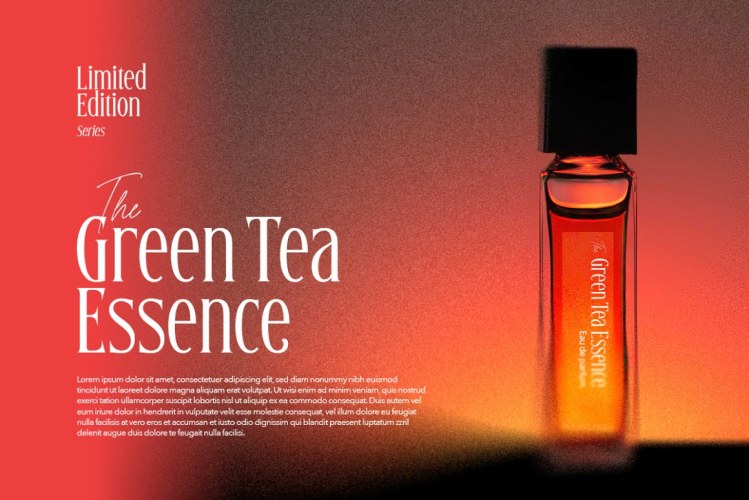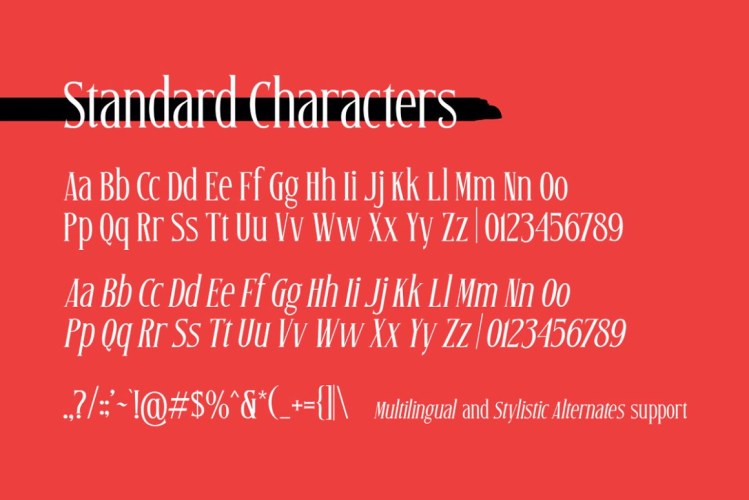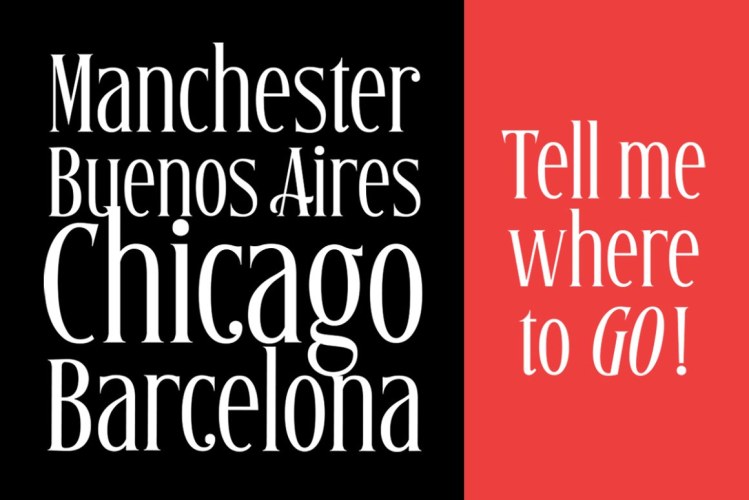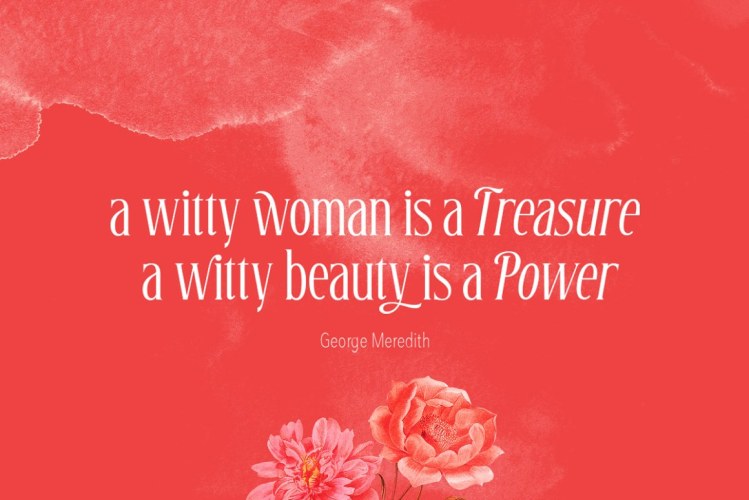
Roghsire – Display Font
Introducing, Roghsire A stylish display font with chic & classic looks. This typeface has been made carefully to make sure its premium quality and luxury feel. It comes with Slant Version. Very suitable for logo, headline, tittle, and the other various formal forms such as invitations, labels, logos, magazines, books, greeting / wedding cards, packaging, fashion, make up, stationery, novels, labels or any type of advertising purpose.
Where Roghsire – Display Font works best
Roghsire – Display Font is built for size: event posters, hero headlines and billboard-style layouts.
High contrast display type like Roghsire – Display Font reads instantly in thumbnails and motion graphics.